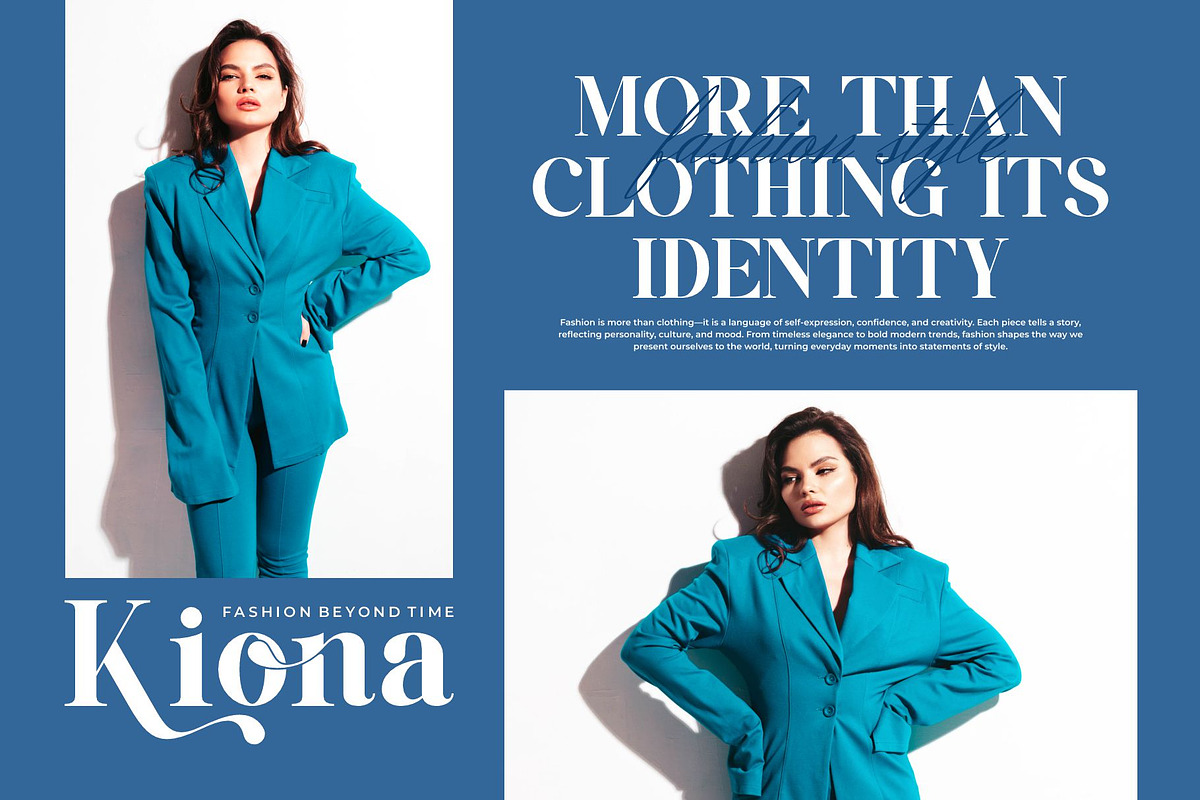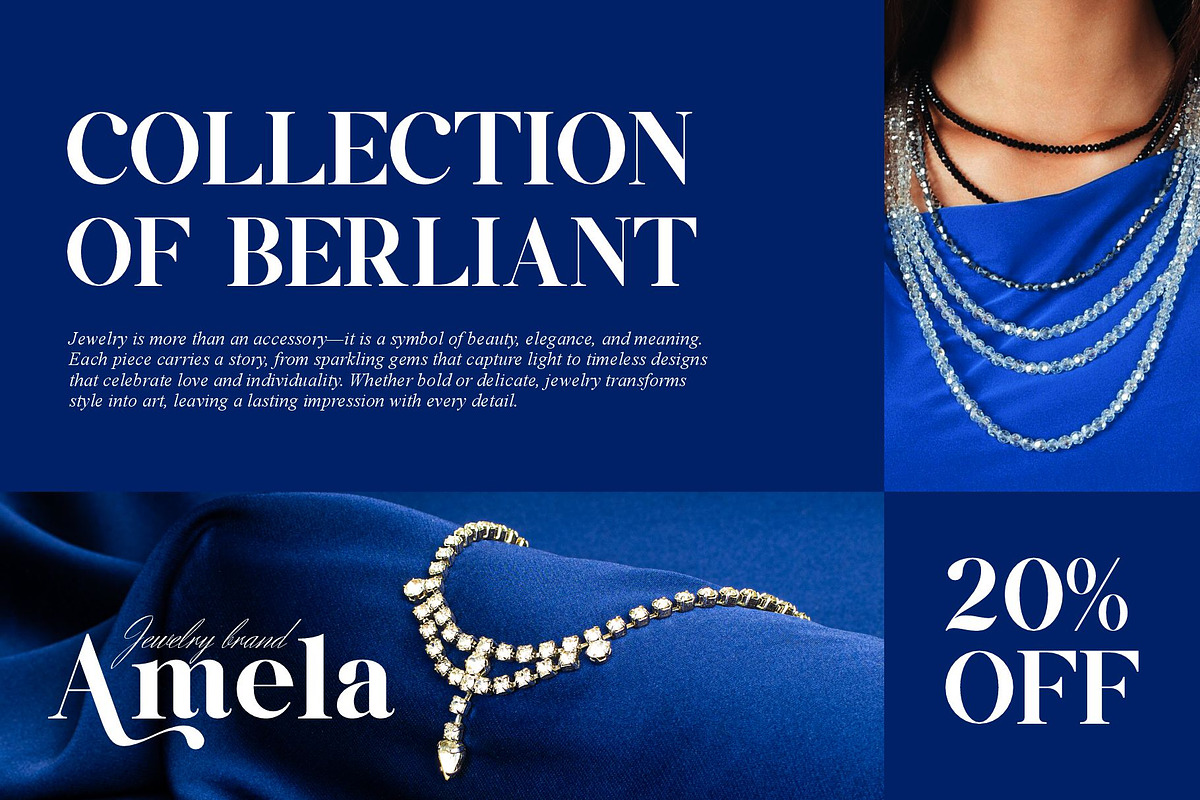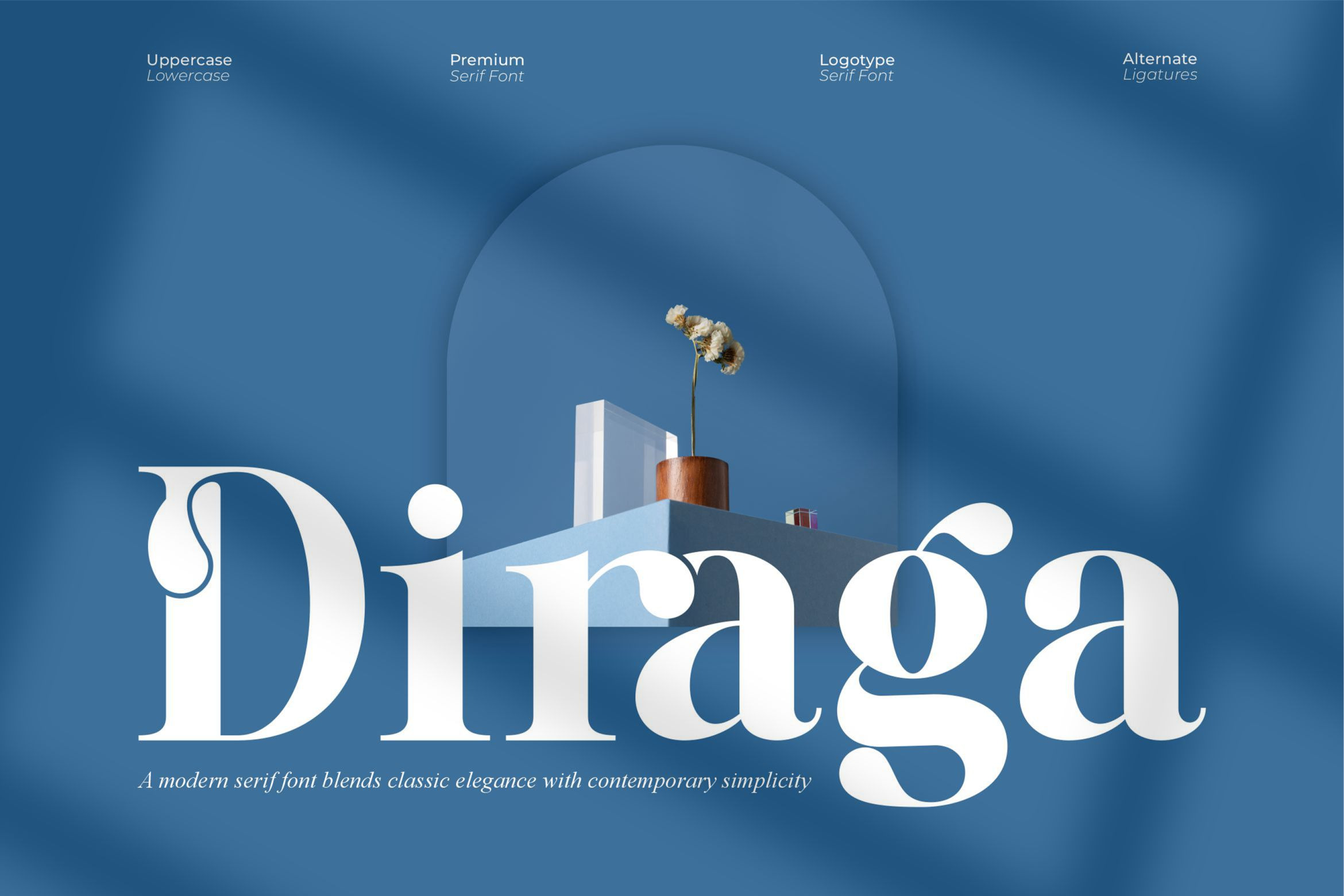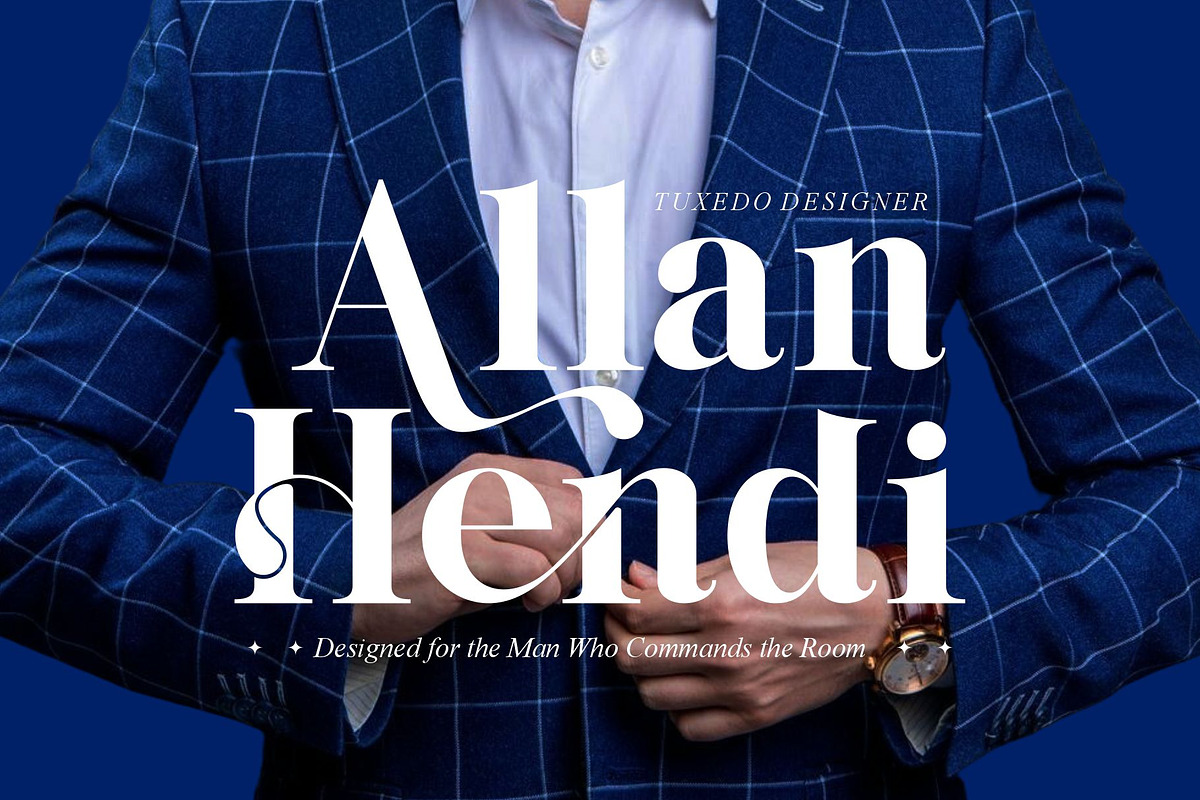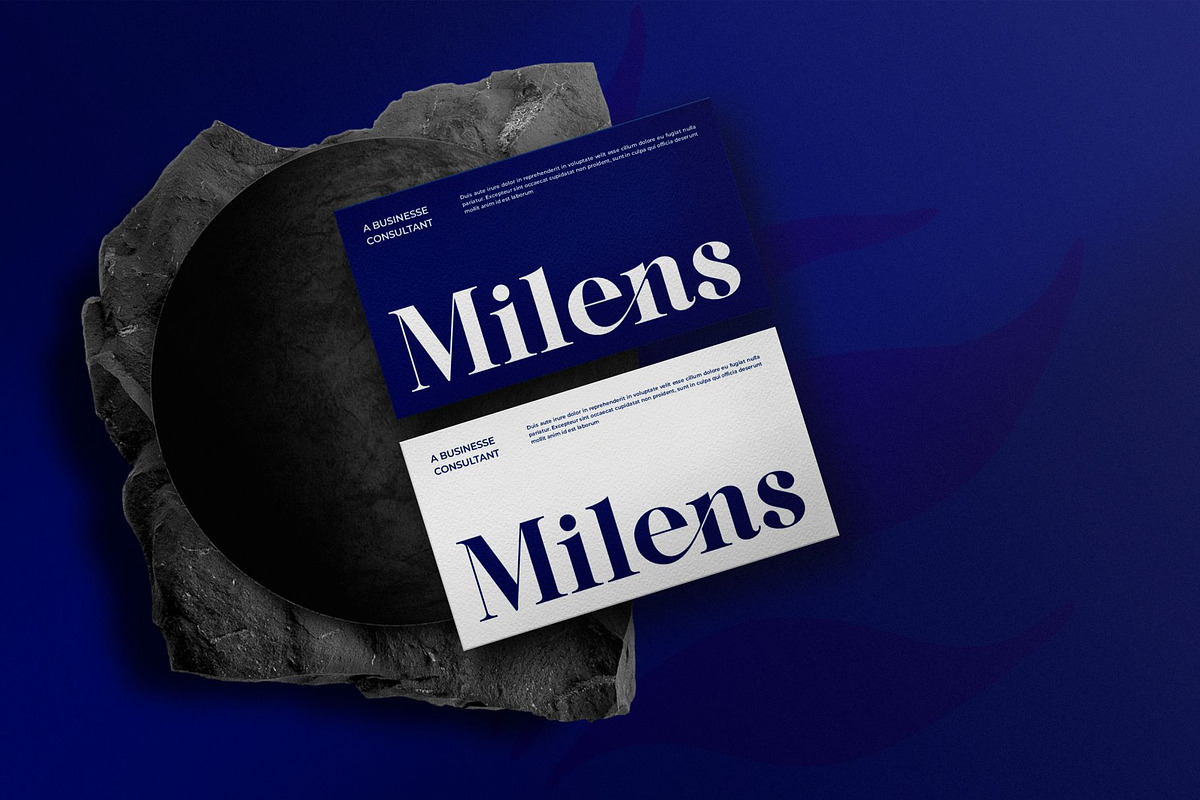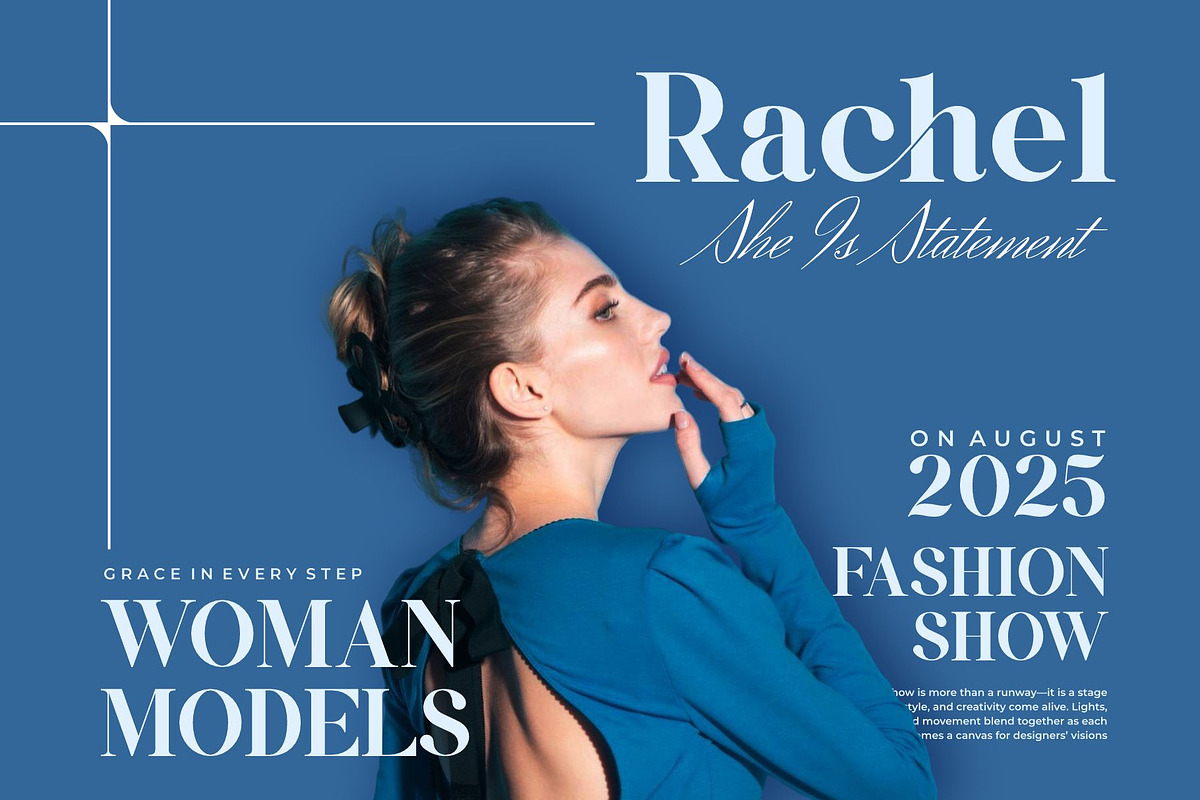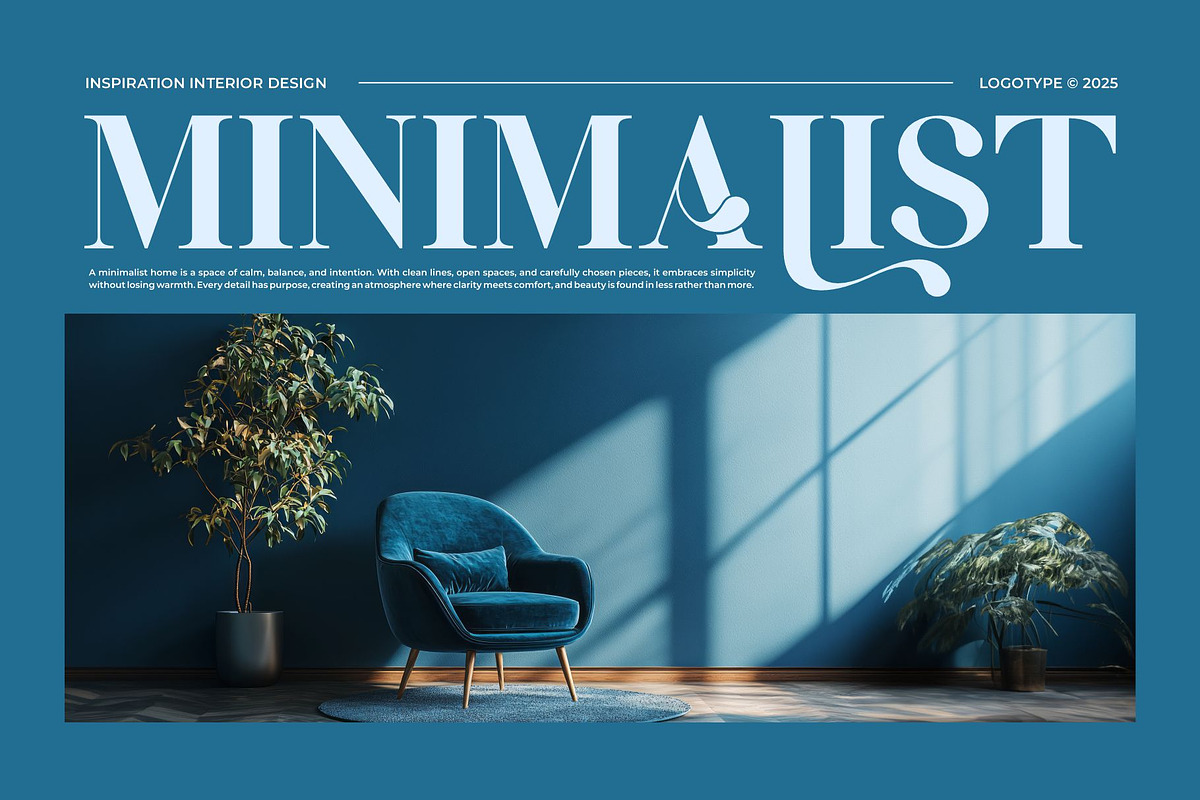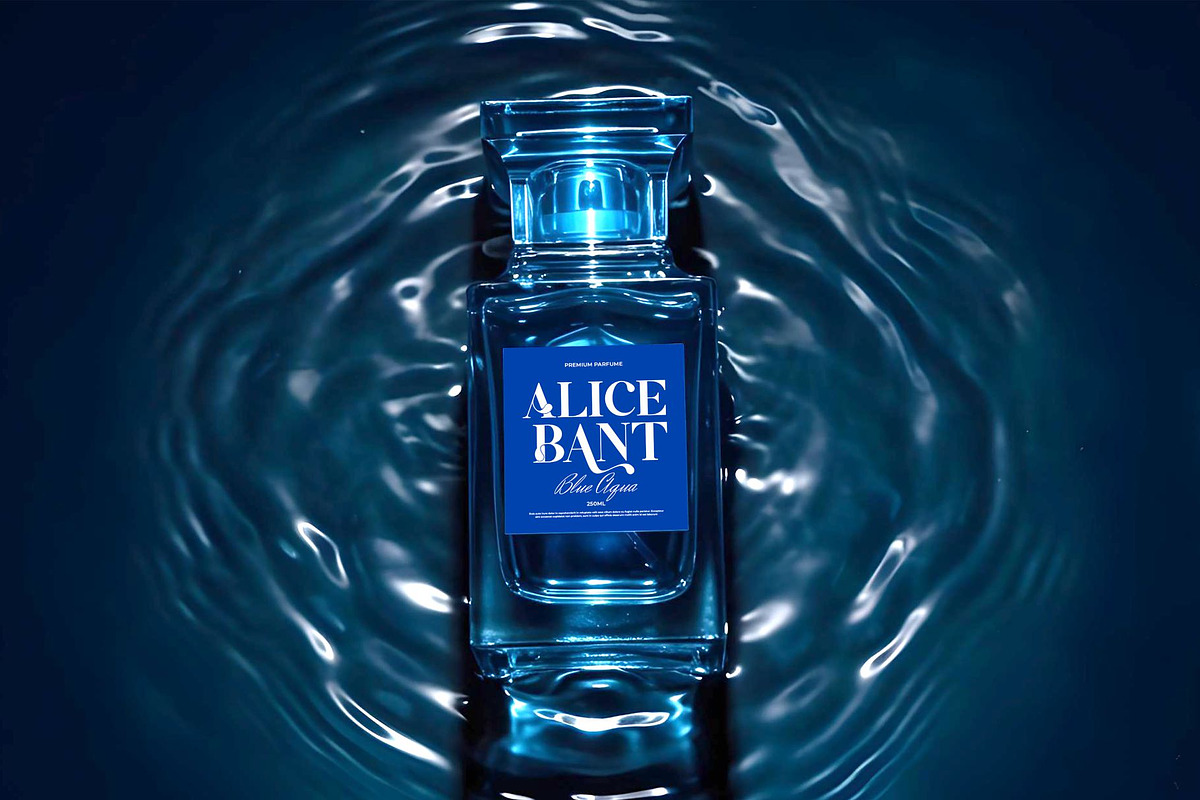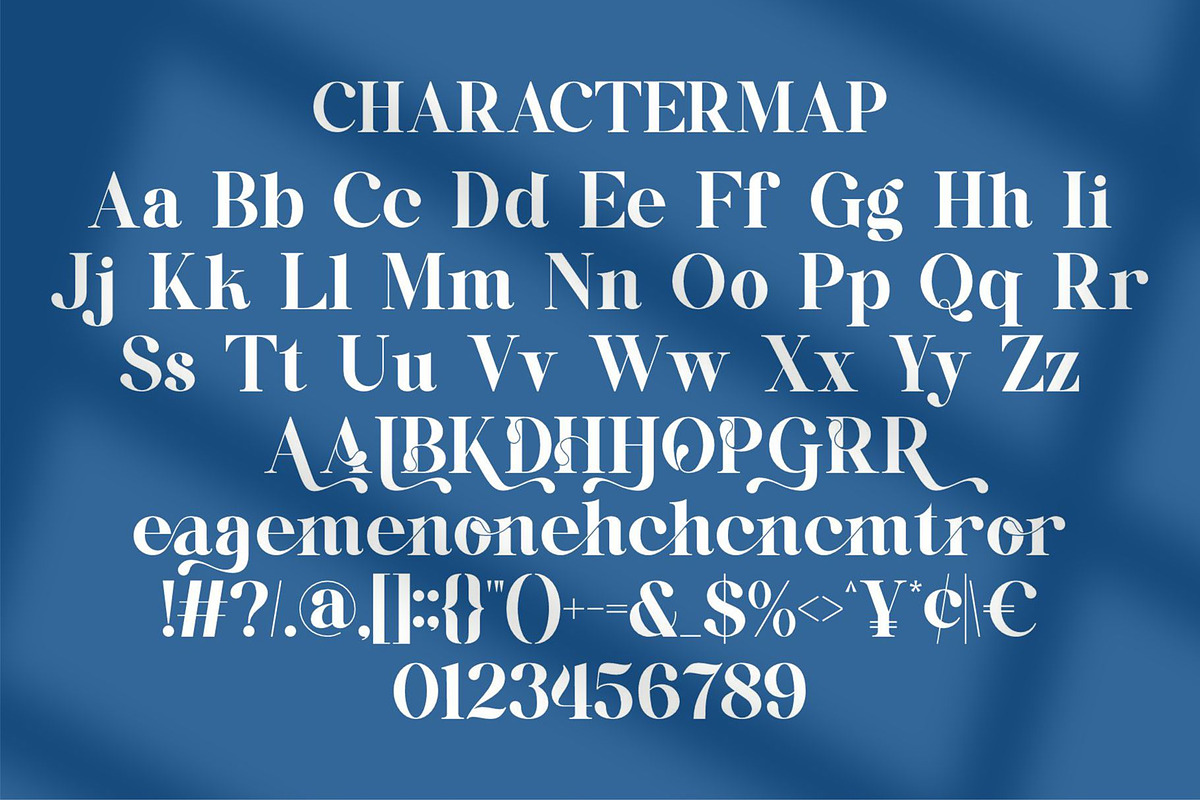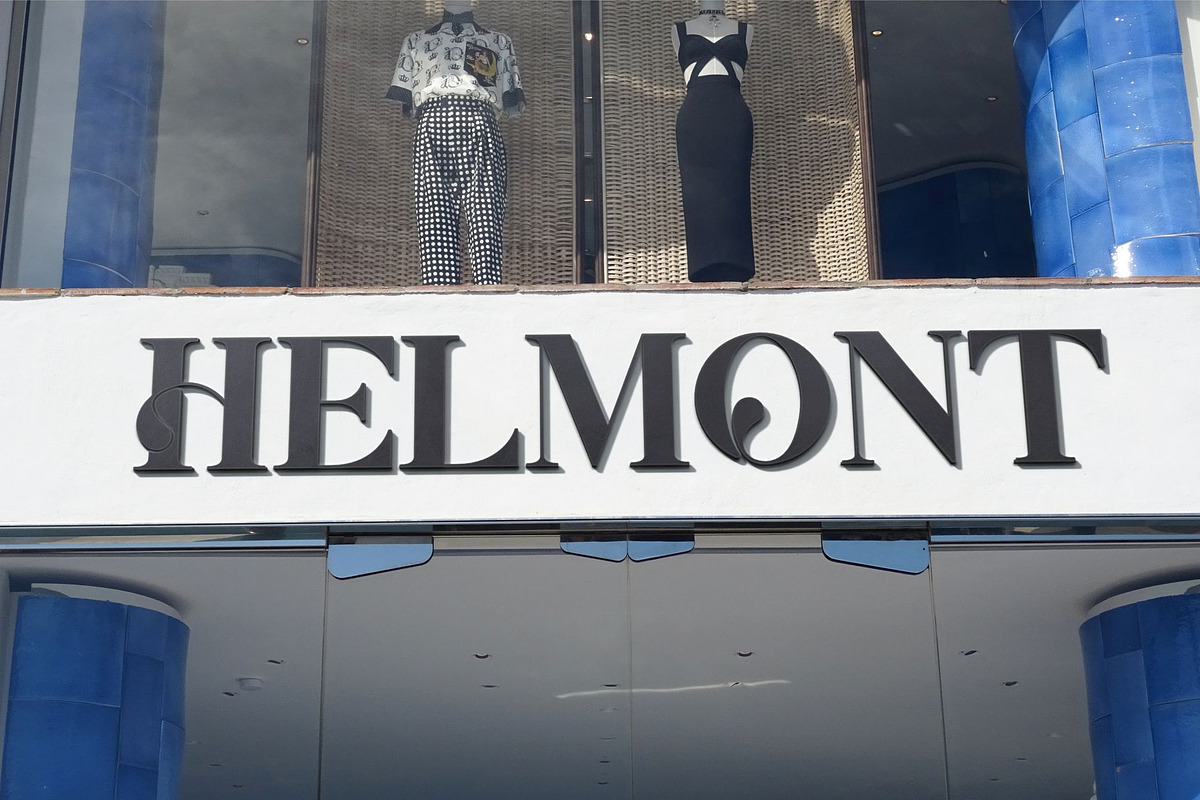
Diraga || Modern Serif Font
Diraga Serif is a modern and classy font type for all branding and logo designs. This modern and classy Serif font has a beautiful character. This font is suitable for invitation card designs, cool logos, movie titles, movie names, business cards, book titles, brand names, and various other designs. Diraga Serif is a smooth serif font that exudes sophistication and the moment. Its stylish ligatures make this font a perfect partner for any project.